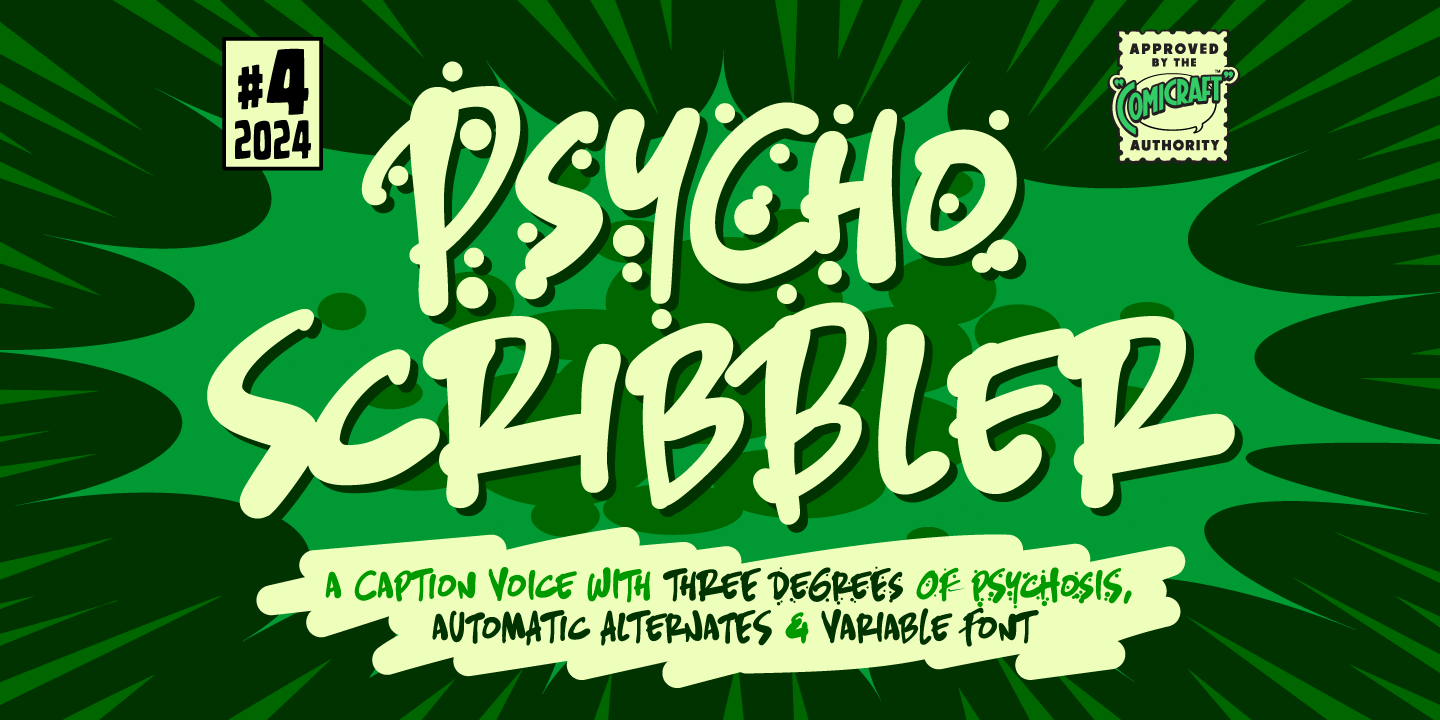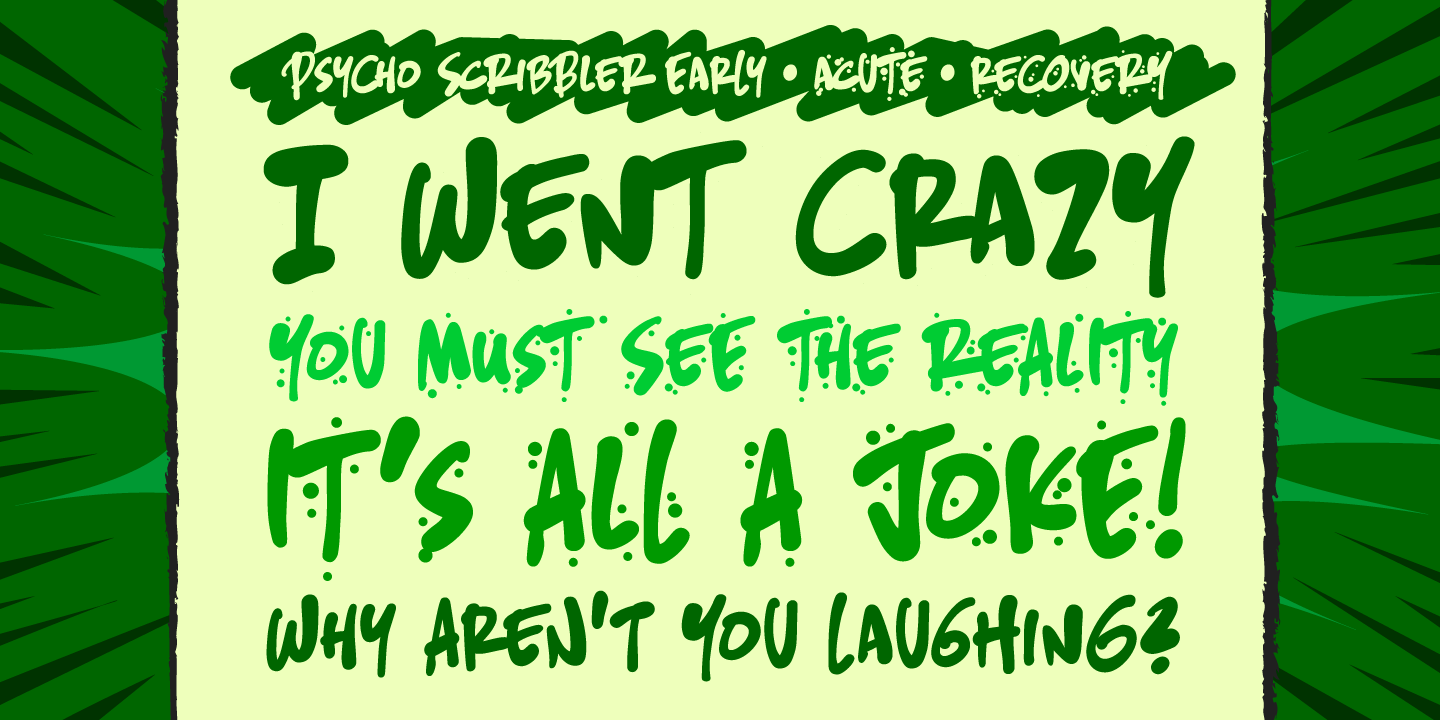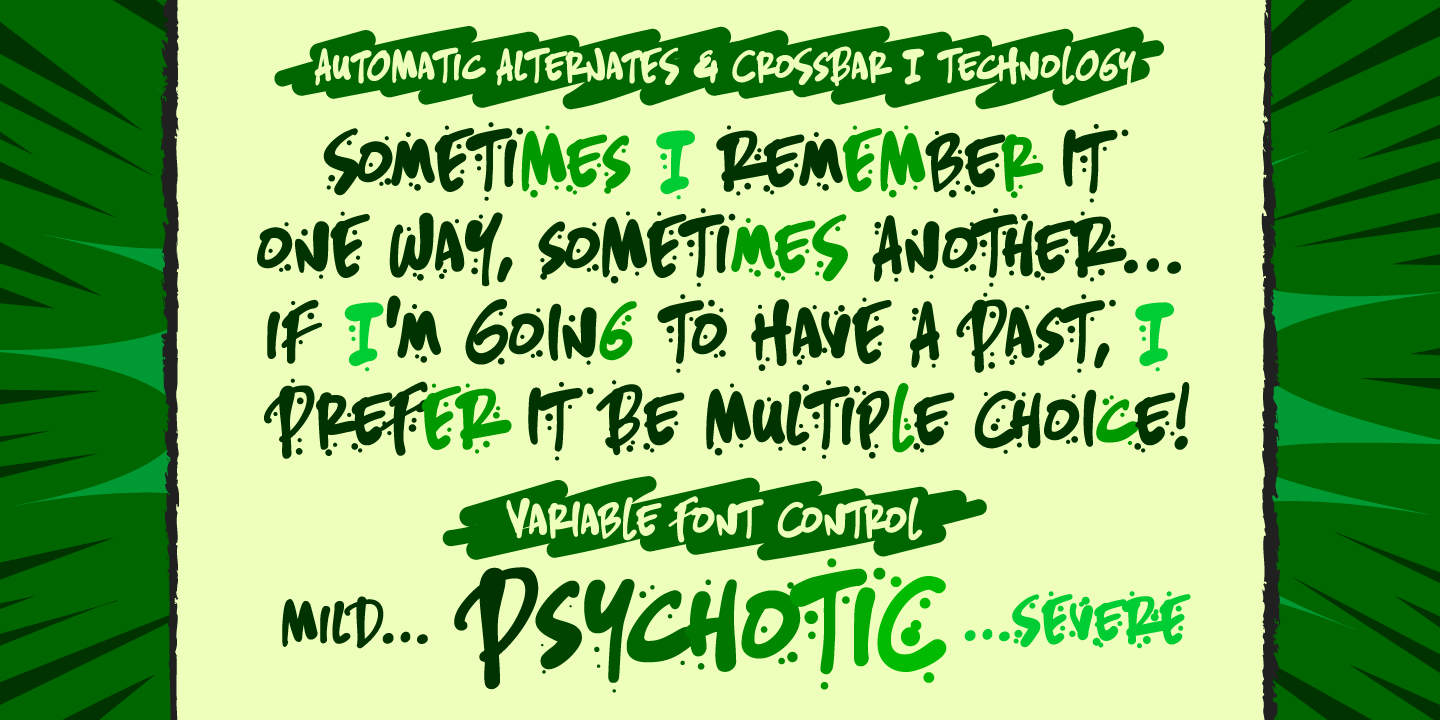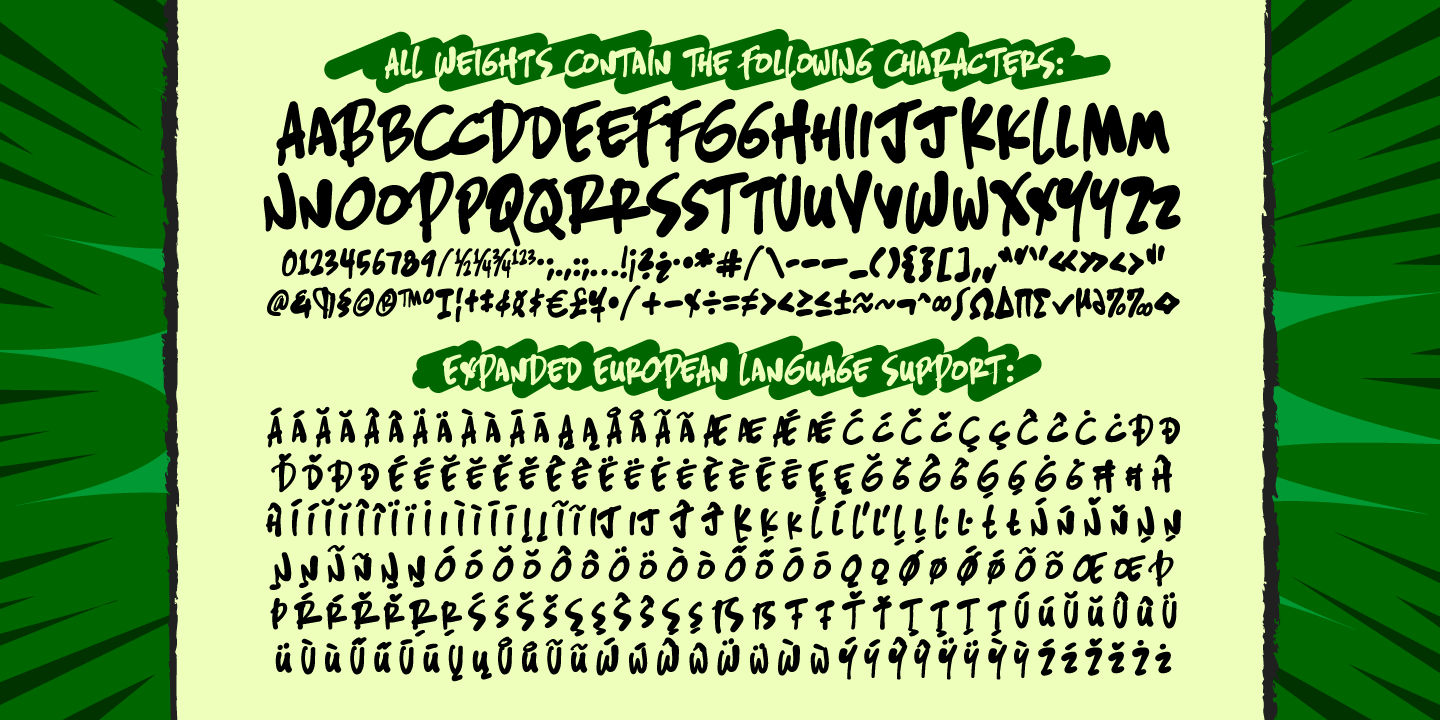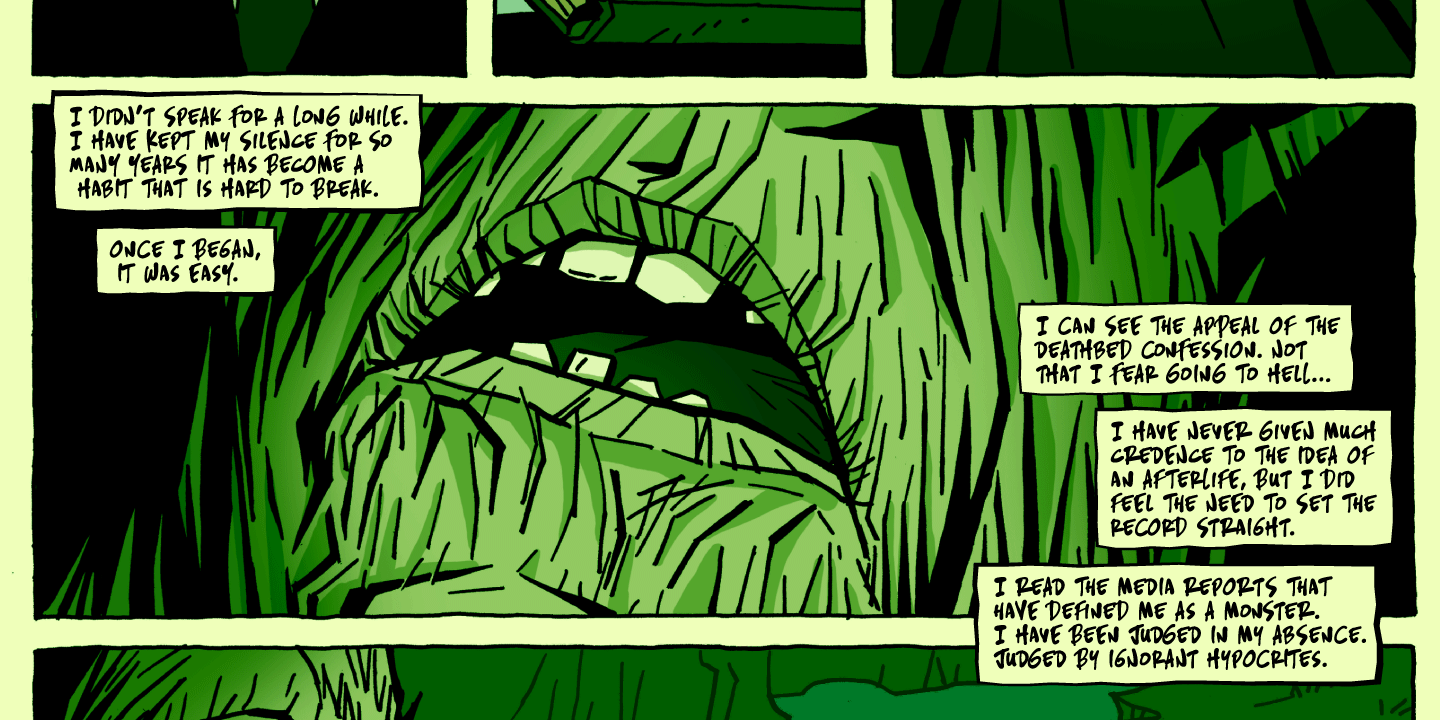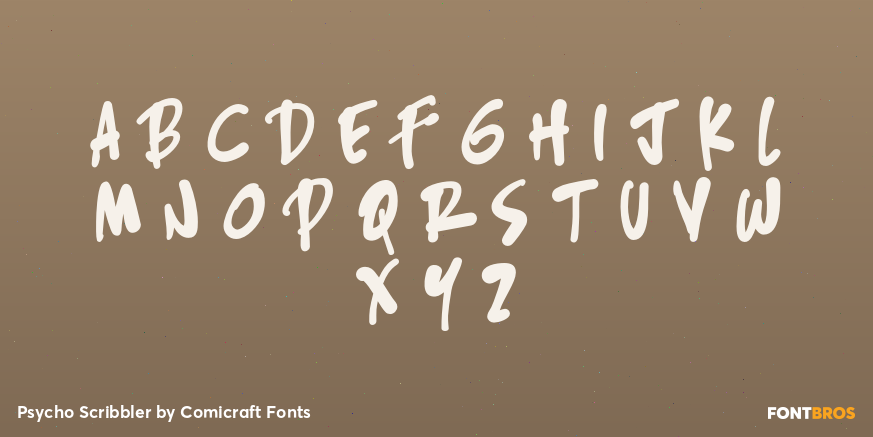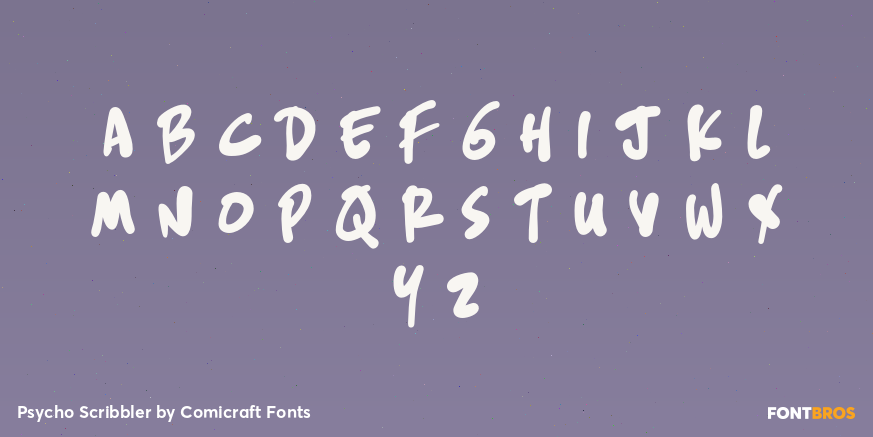
Psycho Scribbler
Font Family by Comicraft Fonts
They’re out there! In YOUR neighbourhood, spray painting their unhinged legend on walls, bridges and the underpass! They’re a little bit deranged, a little bit creative in their madness and the voices in their heads are ready to convince you they’re NOT crazy with a whole lot of paint and splatter. Wait, that IS paint, isn’t it...it’s not Blood?? Mother, BLOOD!
DIAGNOSIS: PSYCHOSCRIBBLER! In this case there are three degrees of psychosis, with automatic alternates, a Variable font and, of course Crossbar I Technology™ because there’s more than one i in split personality!